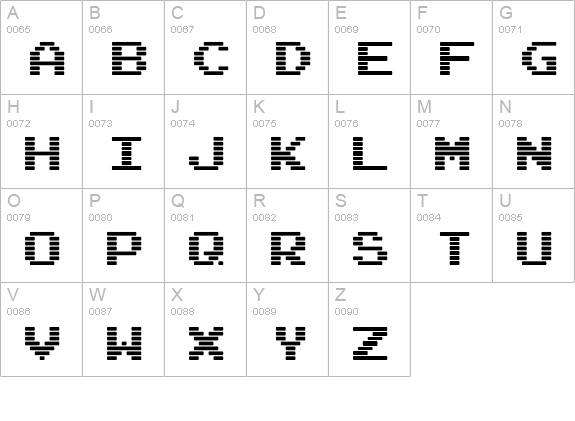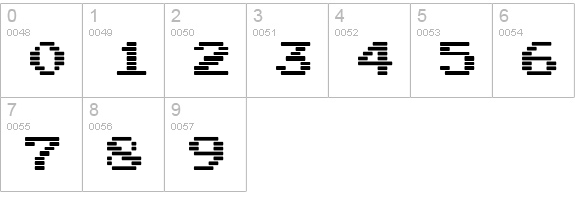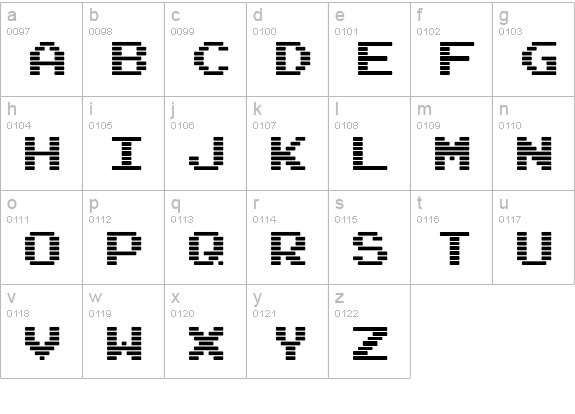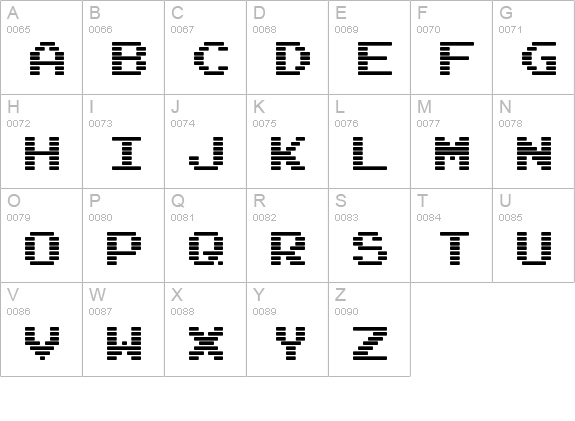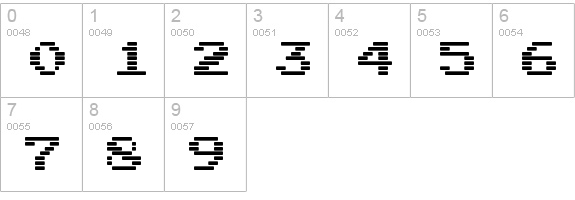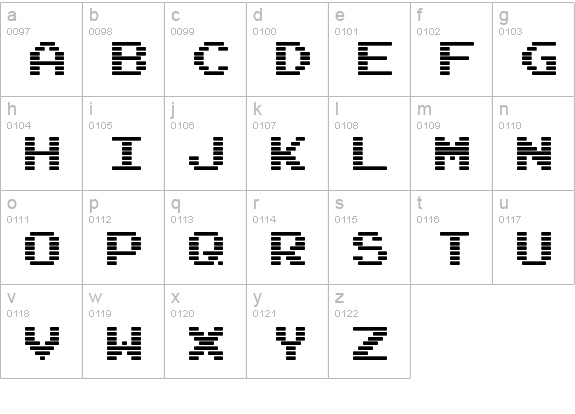
Arcade Interlaced font is a dynamic and eye-catching typeface that exudes a sense of playful energy and retro charm. Its interlaced design gives a unique and modern twist to any project, making it perfect for gaming, entertainment, or any design that calls for a bold and distinctive look. What makes Arcade Interlaced font even more appealing is that it is available for free download at FontsMarket.com. This means that you can easily access this fun and versatile font to enhance your designs without any cost. Whether you're working on a poster, logo, website, or any other creative project, Arcade Interlaced font is sure to make a statement and captivate your audience. Download it now and let your creativity run wild with this exciting typeface.